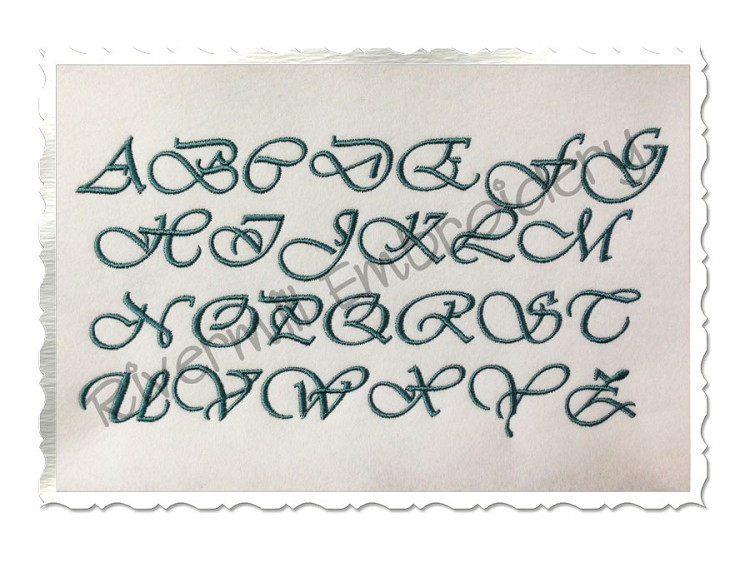
Vivaldi Machine Embroidery Font Alphabet
The set includes upper and lower case letters and numbers 0-9.
These letters are very wide.  Some of the 2" and several of the 3" upper case letters will not work with a 4x4 hoop because of the width.